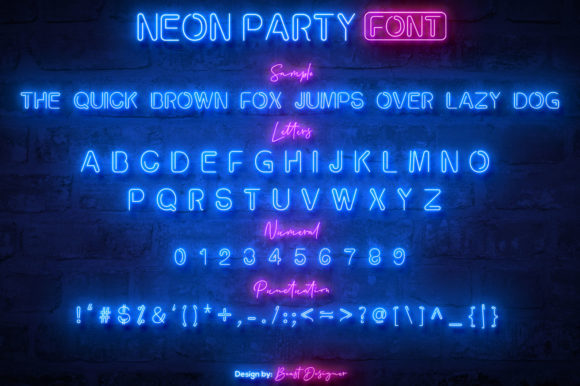
Introduction to Neon Party Font Font
Fonts play a crucial role in design, and the Neon Party Font font is a typeface that brings both character and versatility to any project. Whether you’re working on a branding project, a website, or a print design, the Neon Party Font font offers a unique style that can elevate your work.
Neon Party is a nostalgic neon sign display font.
Carefully handcrafted to become your favorite, this font will elevate your project no matter the topic .
Key Features of Neon Party Font Font
Why Choose Neon Party Font Font?
The Neon Party Font font is more than just a typeface – it’s a design tool that helps you communicate your message with style and clarity. Its unique character set and versatile design make it suitable for a wide range of applications, from elegant invitations to bold headlines.
With its carefully crafted letterforms and balanced proportions, the Neon Party Font font ensures readability and visual appeal across all mediums.
What makes Neon Party Font font special?
The Neon Party Font font stands out with its unique design, exceptional readability, and versatility across various design applications.